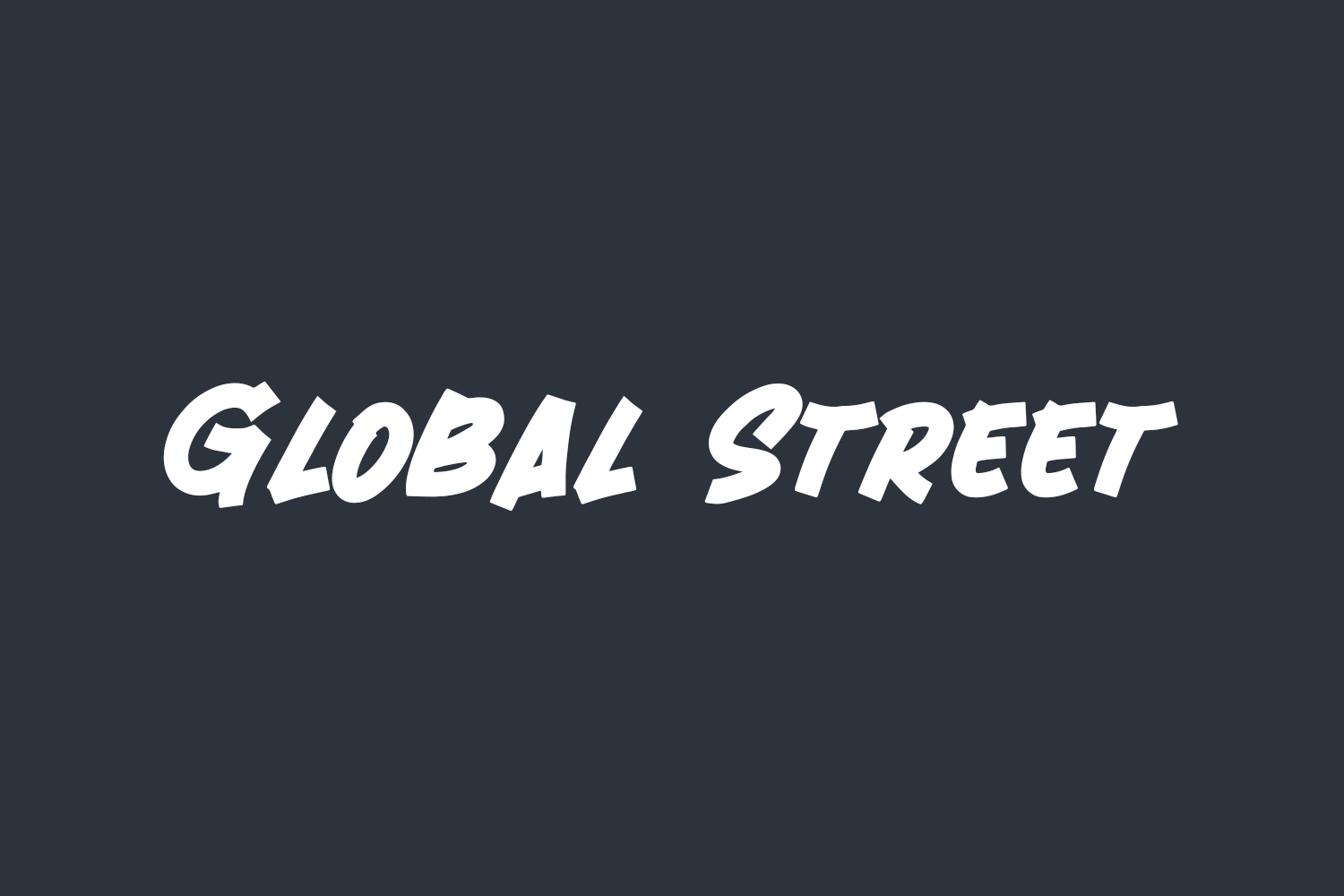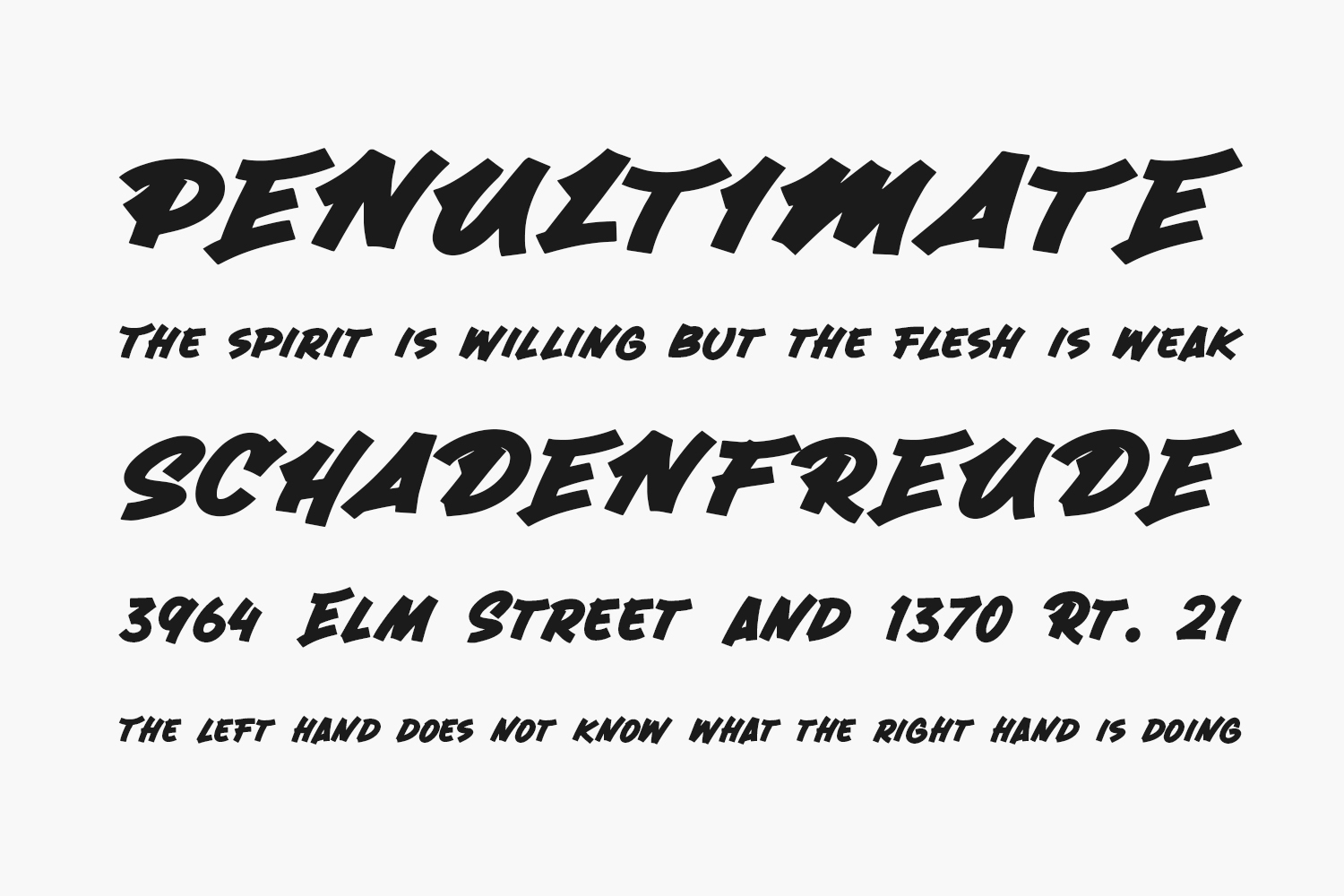
Introducing Global Street Free Font, a dynamic and daring display font that exudes coolness and boldness. With its trendy urban flair, this font is ideal for crafting distinctive and eye-catching designs. Whether you’re working on branding, posters, or social media graphics, Global Street Free Font adds a contemporary edge that commands attention. Elevate your design game with this stylish and versatile typeface today. Download the font for free if you need it for personal use or purchase the full version for commercial use.